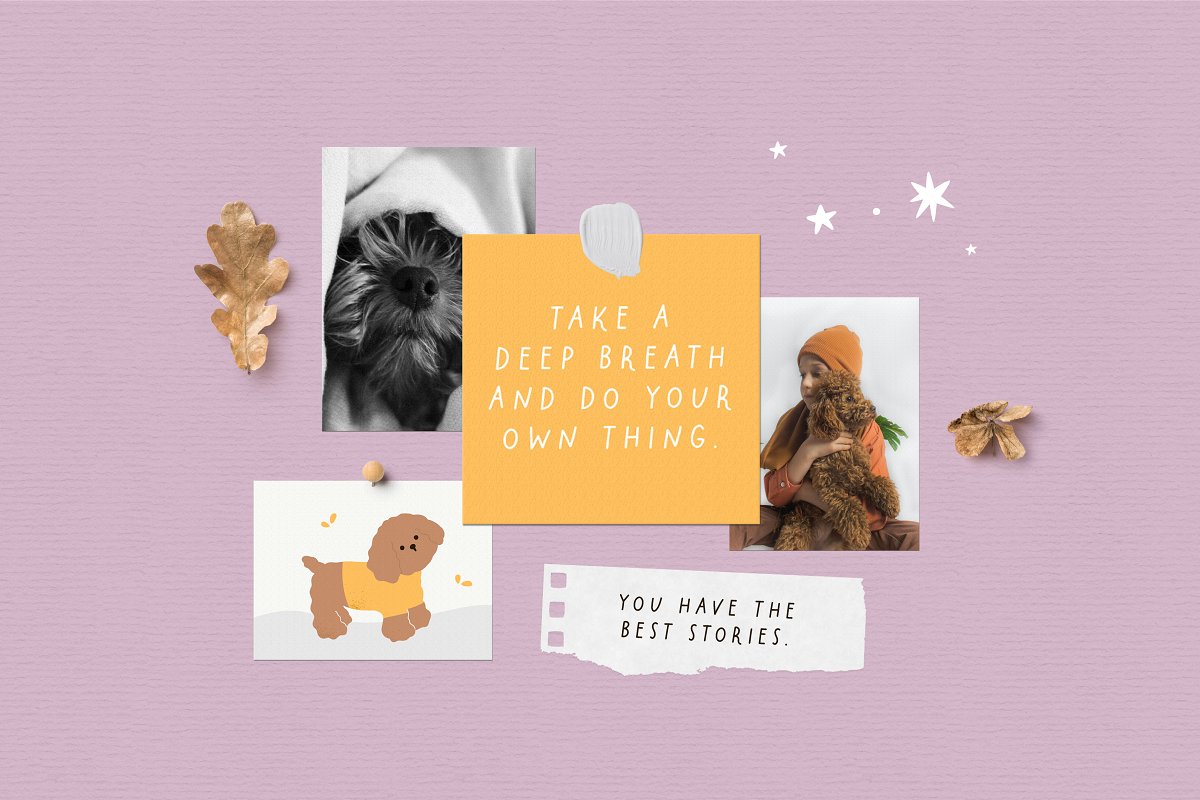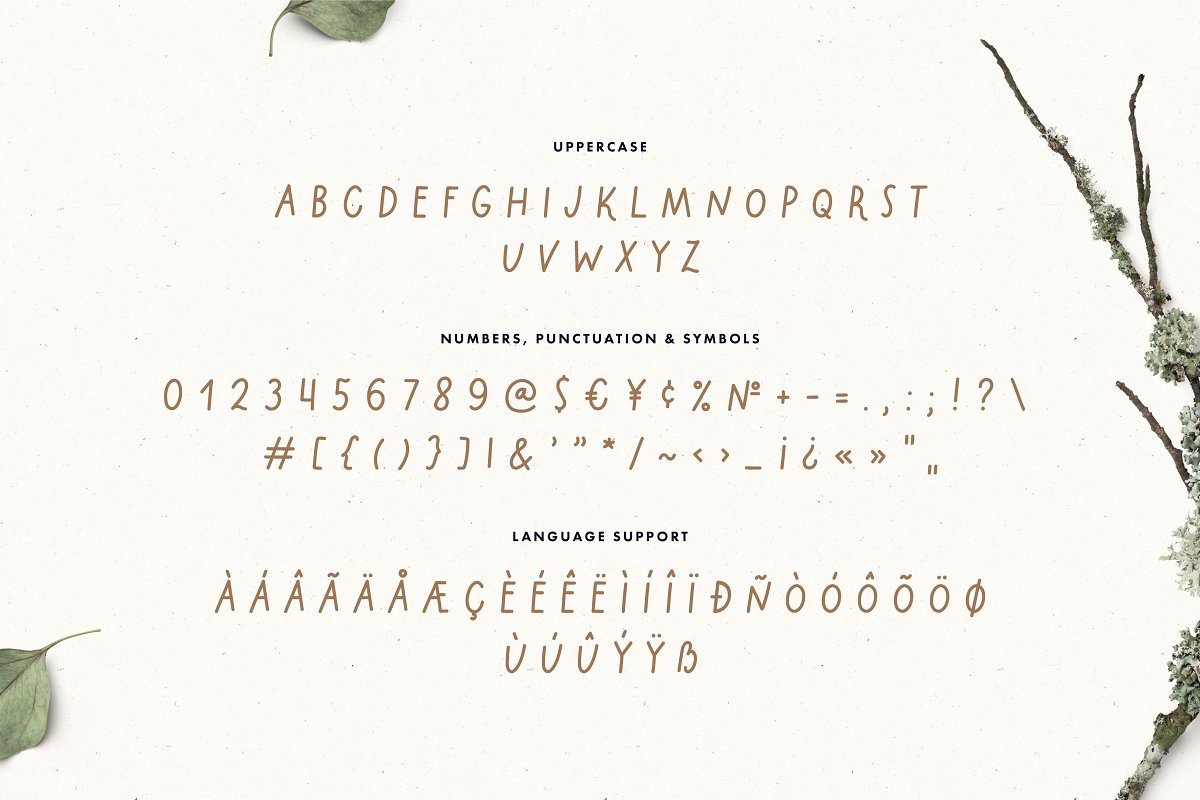
About the Little poodle Sweet Font
Little Poodle will be perfect logos, quotes, invitations, greeting cards, journals, posters, baby clothing and more, This font will make your design looks great and fun!You will get:LittlePoodle, otfLittlePoodleDings, otf36 graphic elements (AI, EPS, PNG with transparent background)Have fun creating! Julia